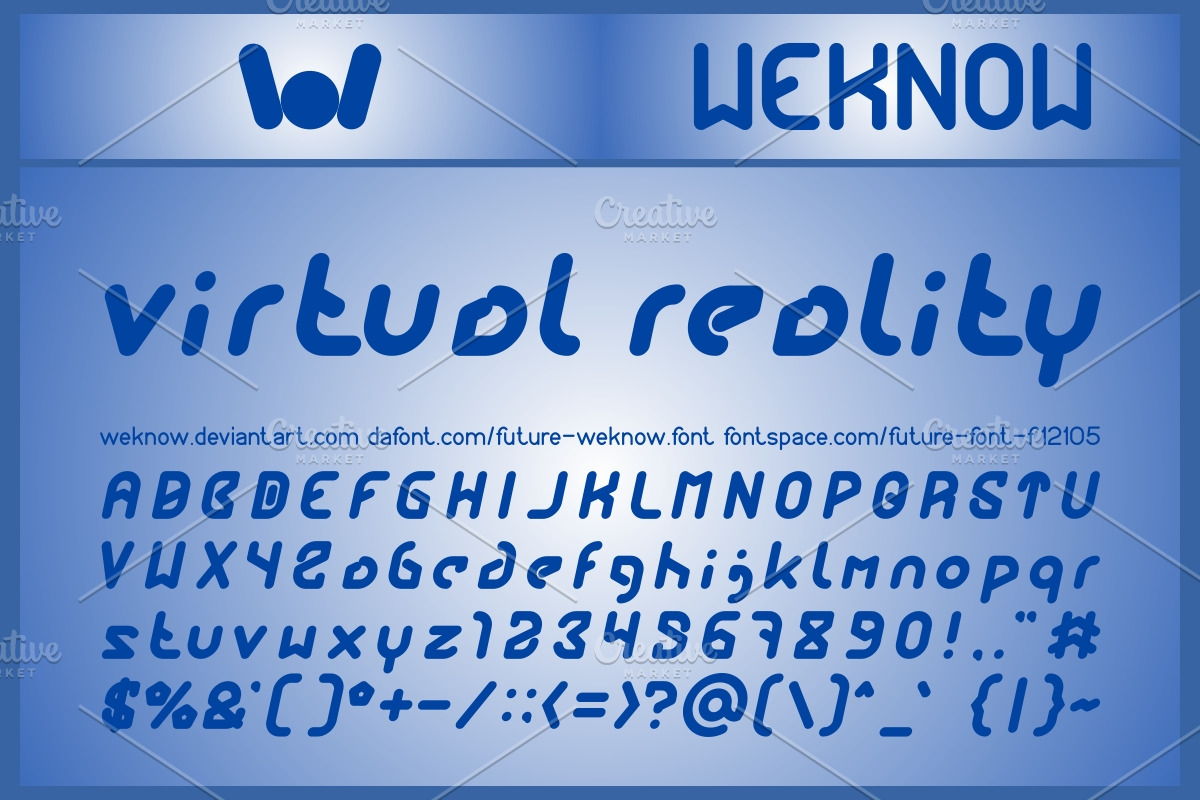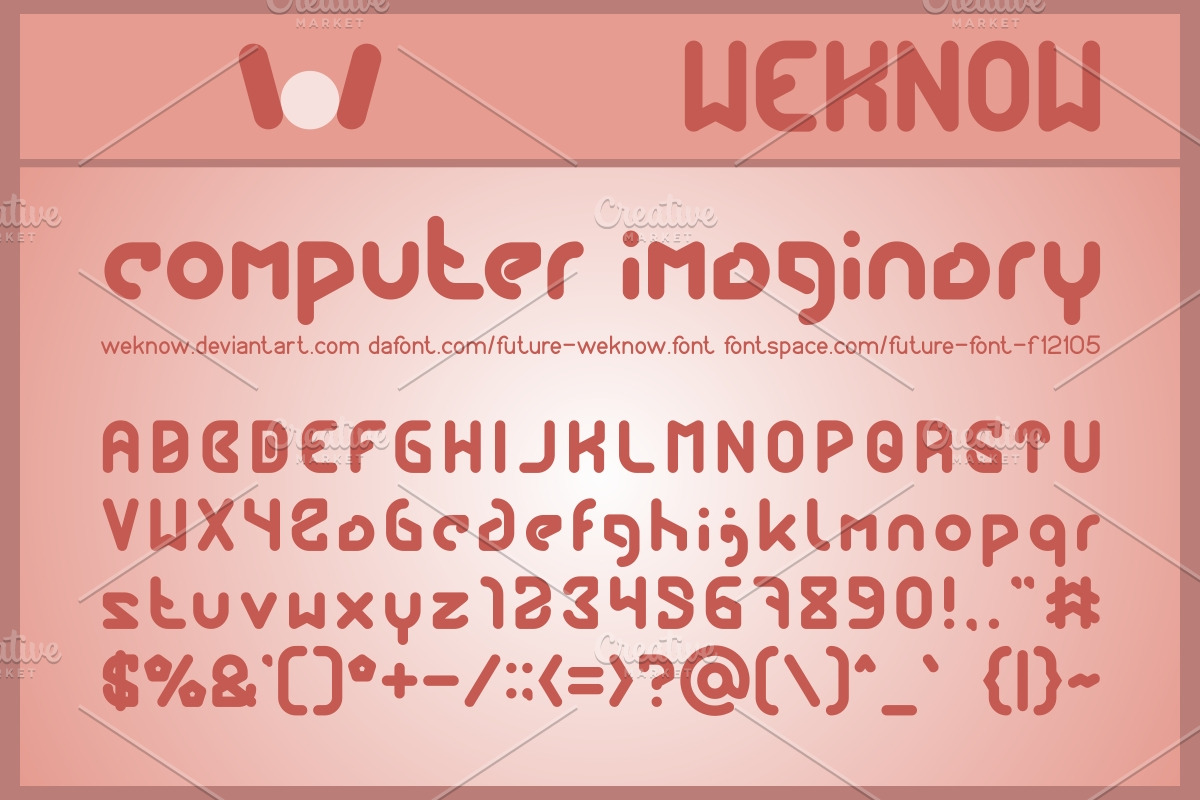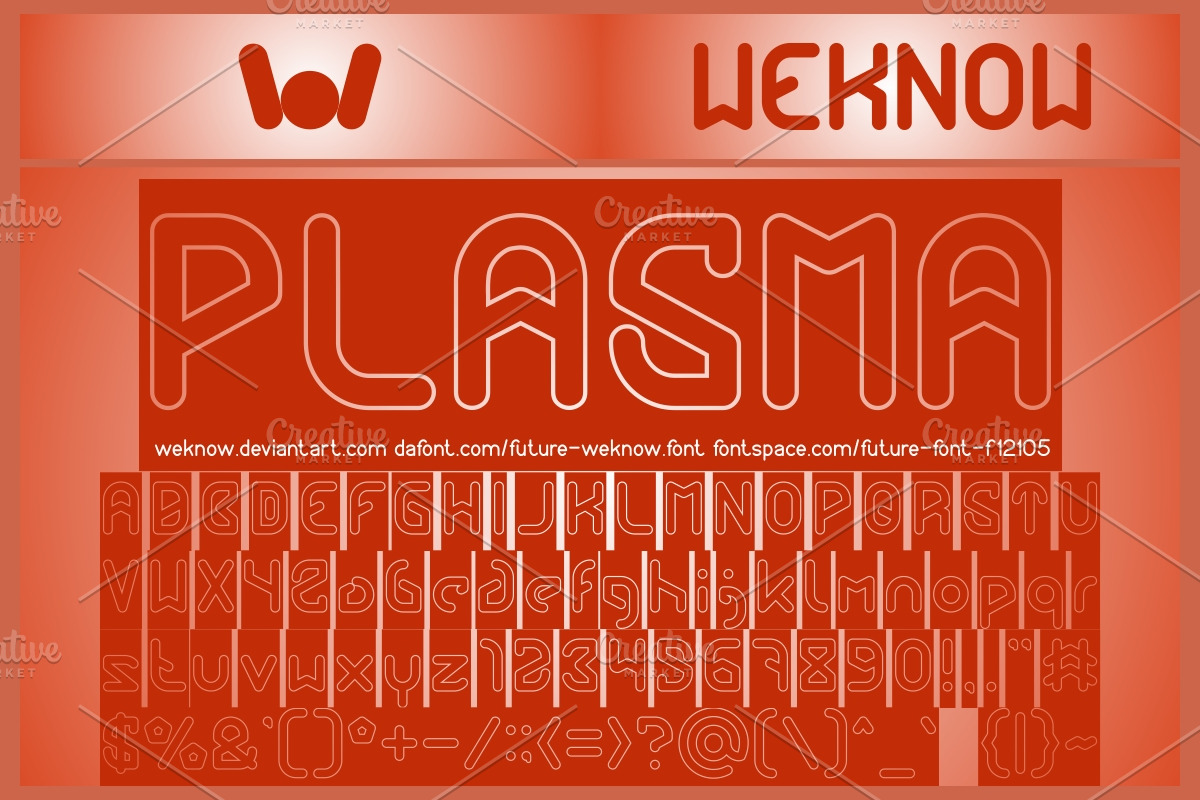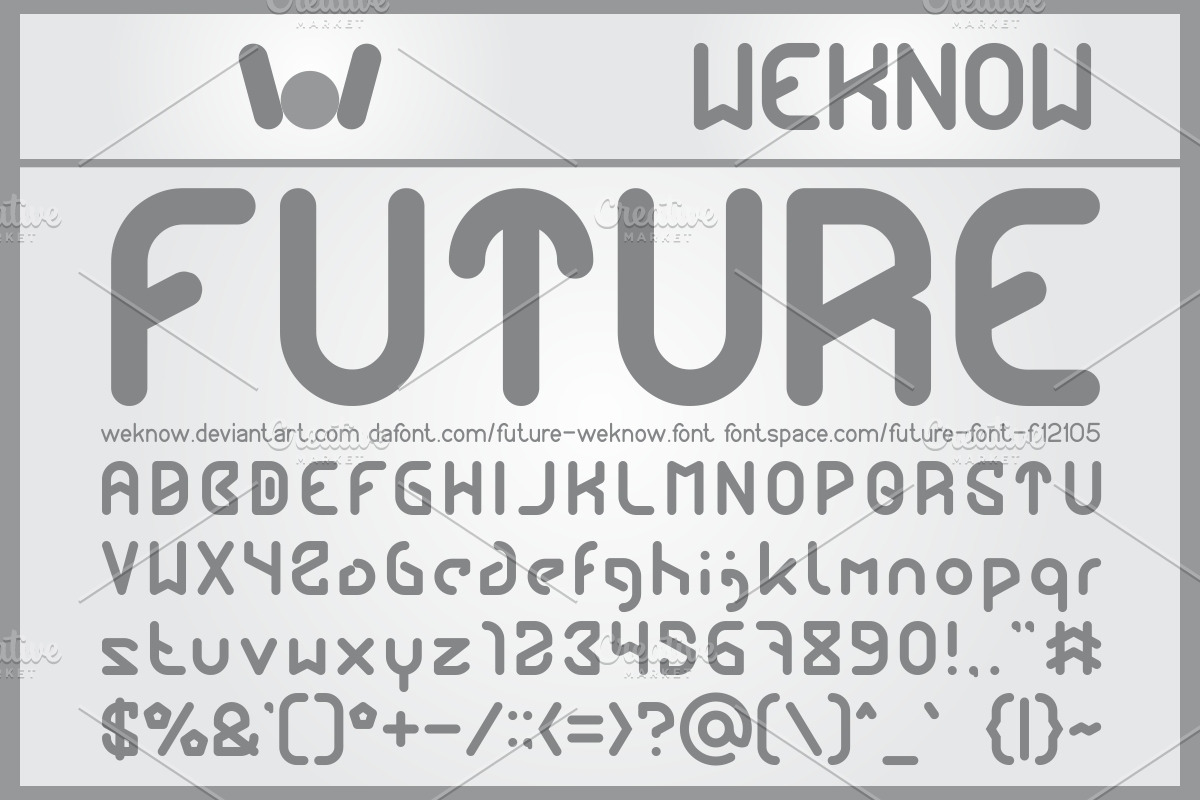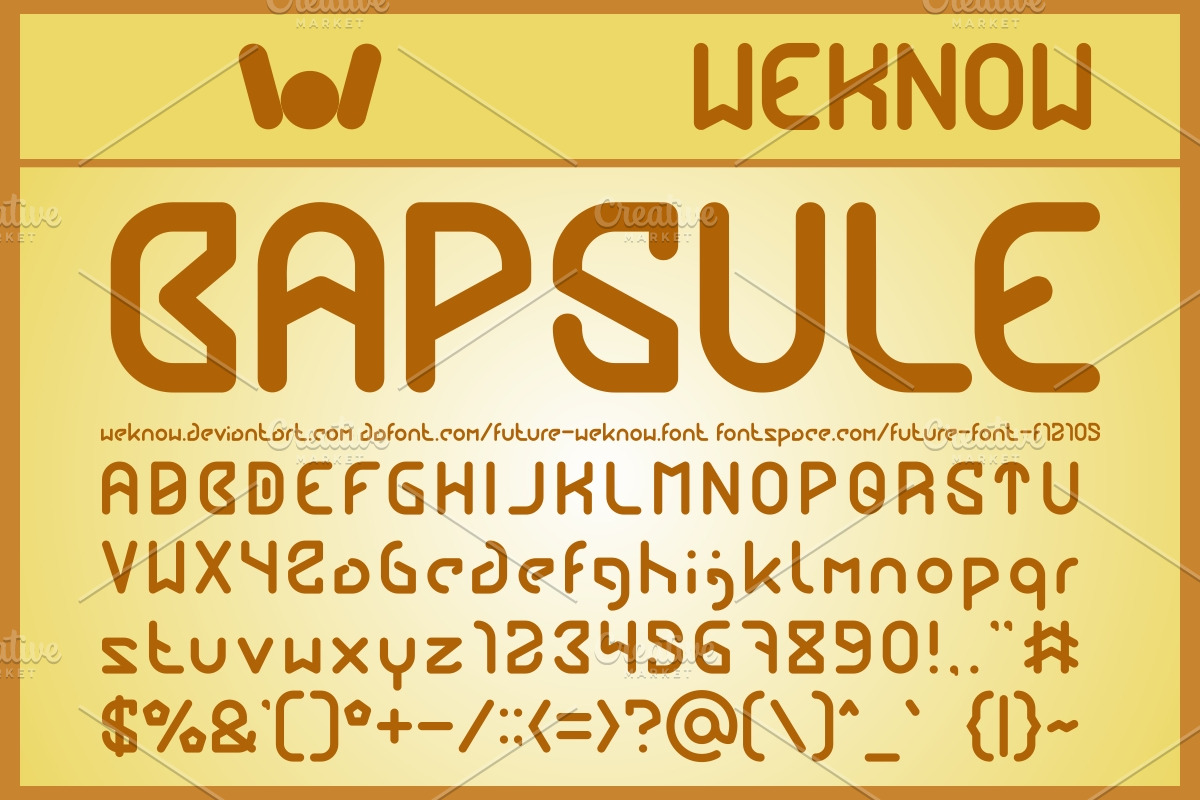
future font
available style: FUTURE-Light, FUTURE-Bold, FUTURE-Bold-Italic, FUTURE-Hollow, FUTURE-Hollow-Inverse, FUTURE-Italic
Why future font is worth a look
future font by weknow fits naturally into Branding, posters, packaging, typography.